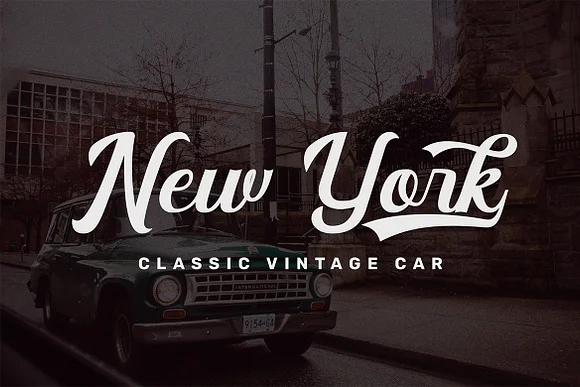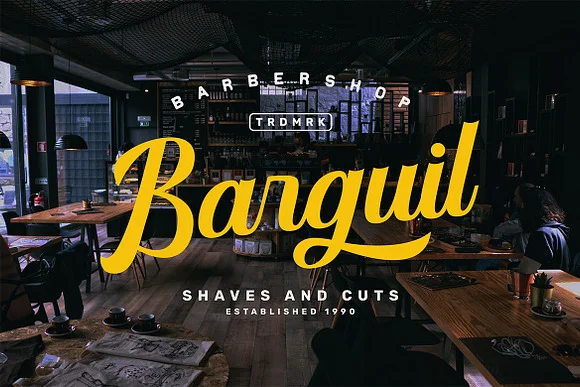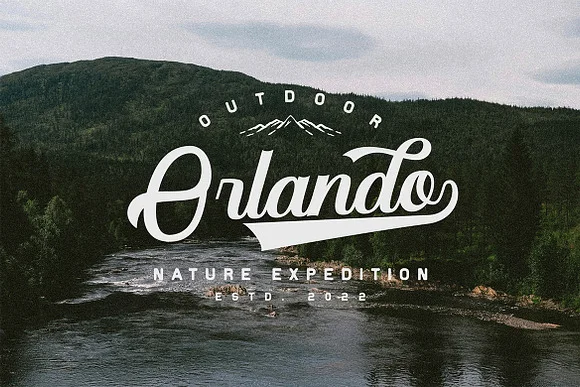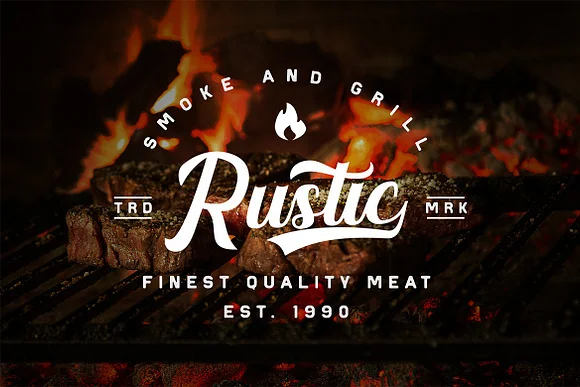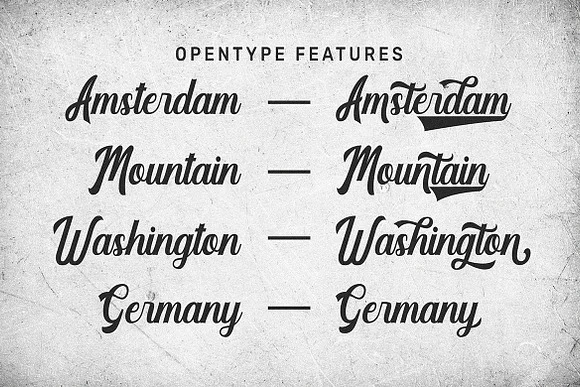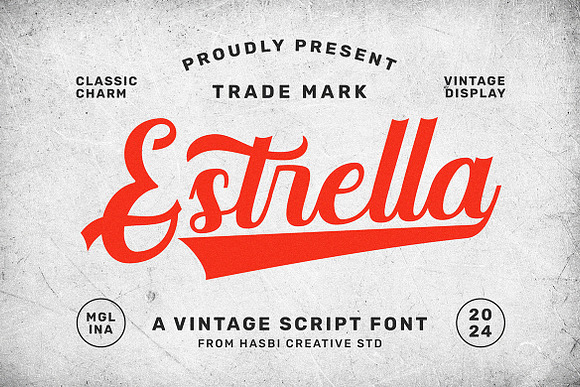
Estrella - Vintage Script Font
A good typeface communicates tone before a single word is read. Estrella - Vintage Script achieves this through optical balance across all weights. The typeface brings a historically informed sensibility to a broad range of creative disciplines, with controlled contrast that rewards close inspection that holds up whether the work is print-first or screen-first.
In practice, Estrella - Vintage Script proves particularly effective for steampunk projects, brand identity systems, nostalgic posters, product labels, poster creation. Designers reaching for it find that the type decisions feel resolved rather than laboured — a useful quality when client timelines are tight.
The range of applications extends to signage systems, denim brand identity, whiskey packaging, vintage apothecary labels. That breadth is deliberate: the proportions and spacing were stress-tested across a wide range of mock briefs before the typeface was finalised.
The design draws on chromolithographic lettering from the 1880s–1920s, with condensed proportions, strong contrast, and inline details that reproduce authentically even at smaller sizes. Distressed variants add era-appropriate texture without obscuring legibility.
Estrella - Vintage Script sits comfortably alongside both classic and contemporary typefaces in multi-font hierarchies. It takes direction rather than competing for attention — a quality that experienced designers know is harder to find than it appears.
Brand strategists building visual languages find Estrella - Vintage Script a reliable choice for projects that demand both personality and restraint. The design avoids the self-conscious quirkiness that dates quickly, settling instead for considered distinctiveness that holds up over time.